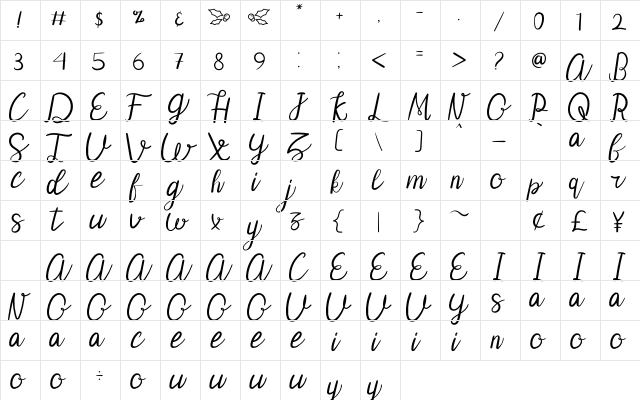
Warm Snow Regular
| Foundry | Attypestudio |
| Designer | Attypestudio |
Design Context for Warm Snow Typeface
Warm Snow is a composed and adaptable typeface that performs quietly and consistently across a wide range of design contexts.